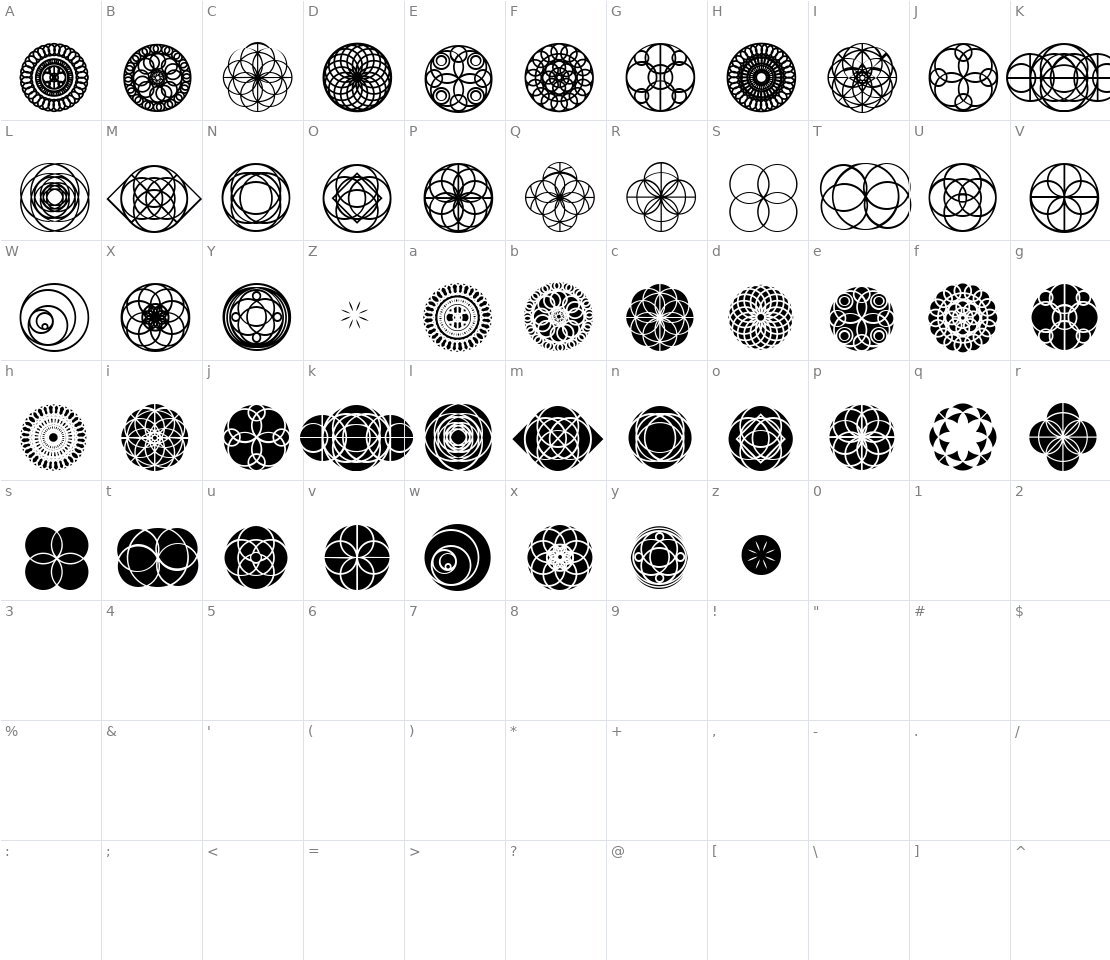
Kaleidoscopic Vision
Kaleidoscopic Vision is an ornamental symbol font from Qkila, filled with intricate circular and mandala-like patterns rather than traditional letterforms. Each glyph is a self-contained geometric design with the radial symmetry of a kaleidoscope, making the set useful for decorative borders, background textures, dividers, and anywhere you need a detailed ornamental element without illustrating one from scratch.